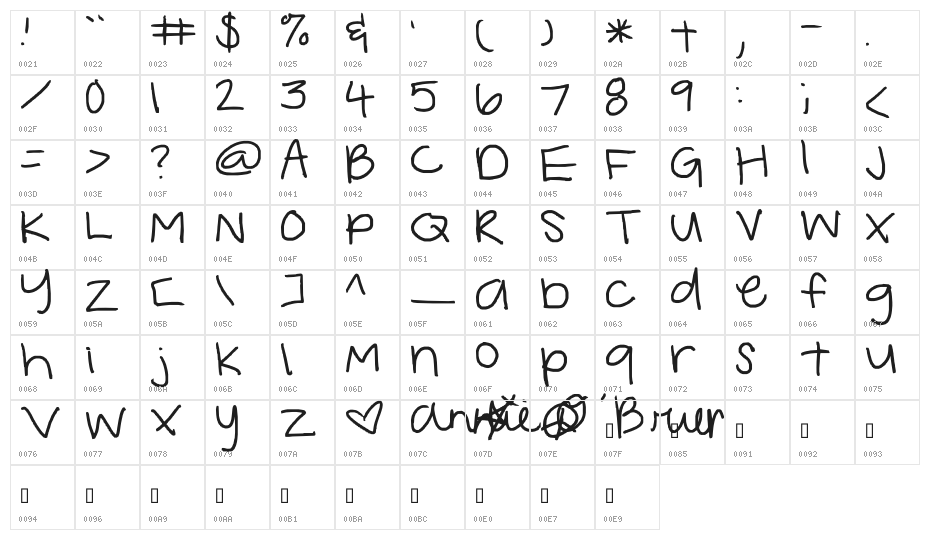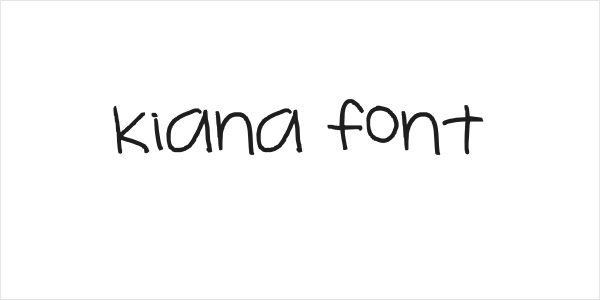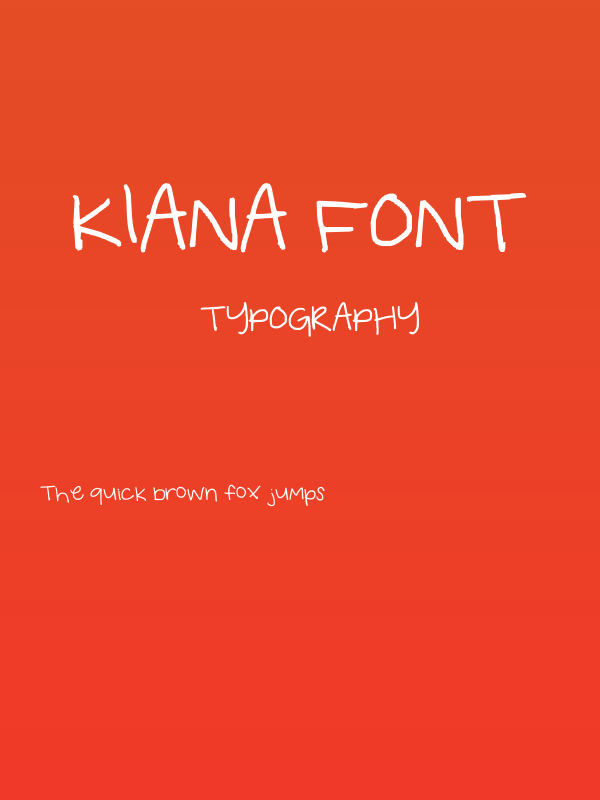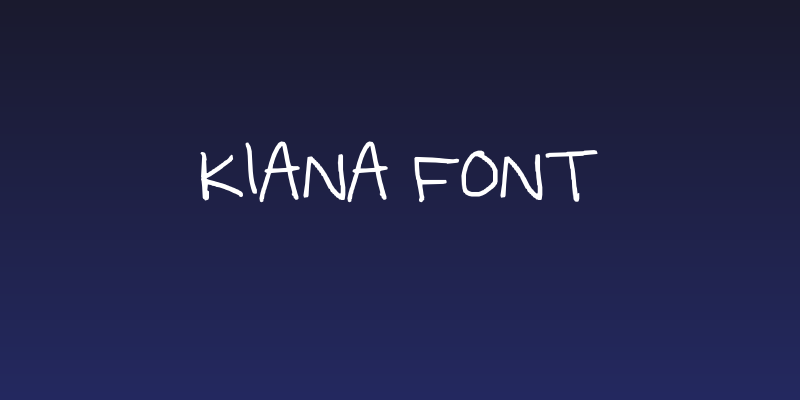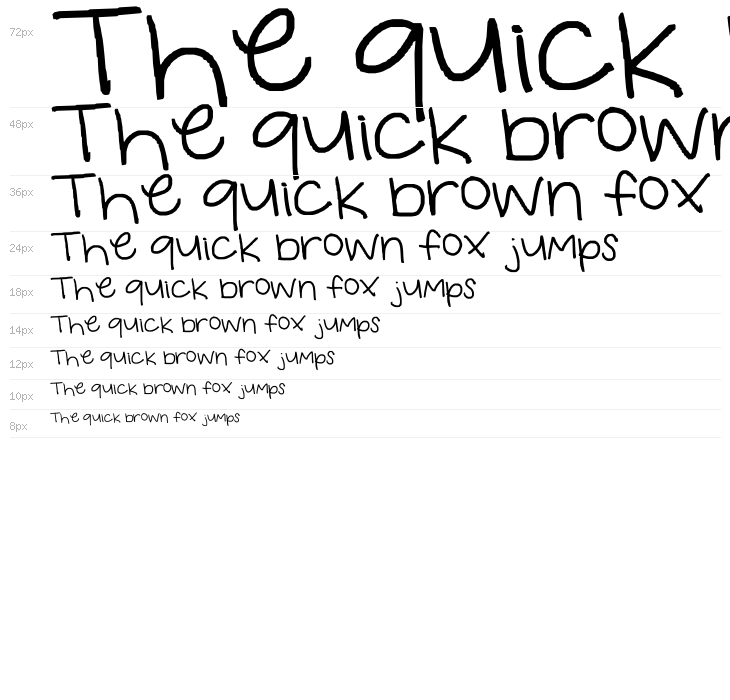
kiana font Description
This font exudes a casual and playful handwritten style, characterized by its loose and informal strokes. The letters are slightly slanted, giving it a dynamic and lively appearance. The uppercase and lowercase letters maintain a consistent flow, while the numbers and special characters complement the overall aesthetic. The font's organic and unrefined edges add to its charm, making it feel personal and approachable. It's perfect for projects that require a touch of whimsy and creativity, such as greeting cards, children's books, or personal notes.
Overall StyleCasual, Playful
Use CaseHeadlines, Informal text, Creative projects
Proposed ProjectsIdeal for greeting cards, children's books, personal notes, and creative projects.